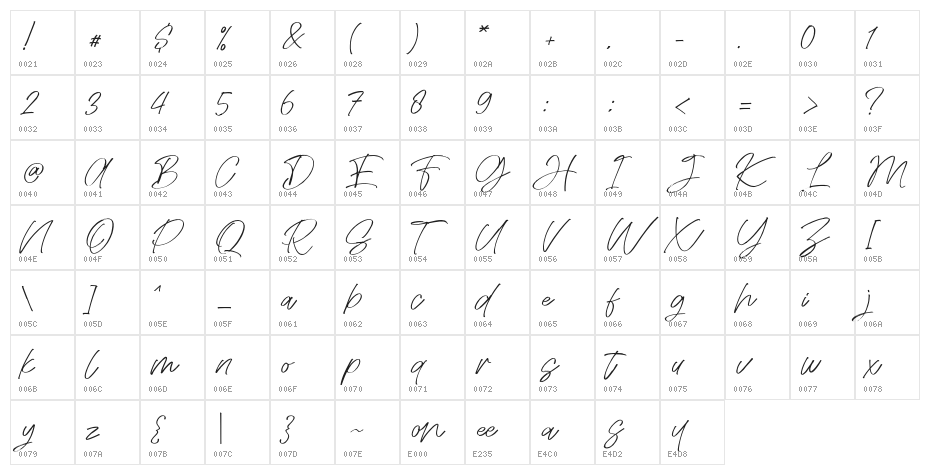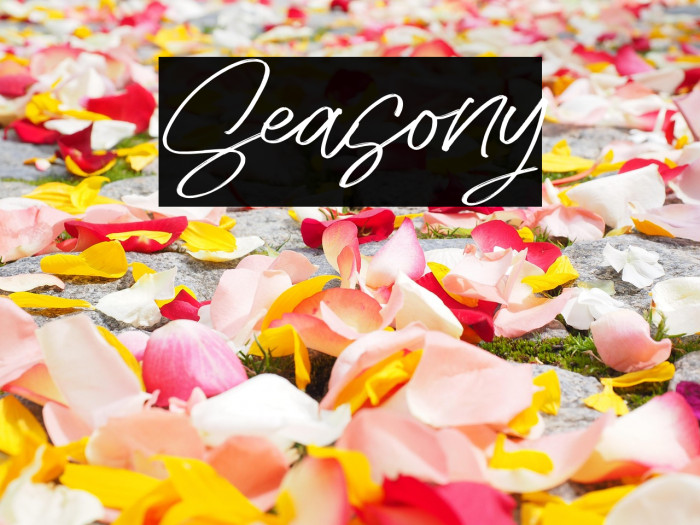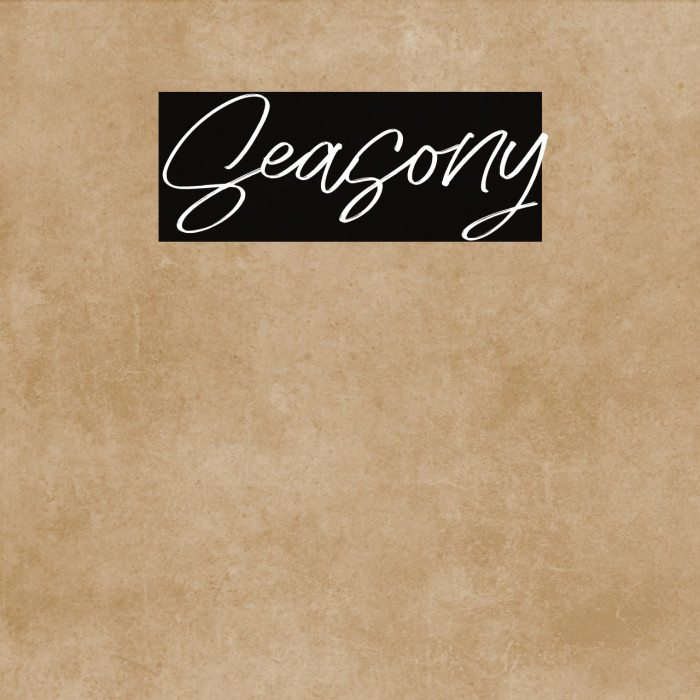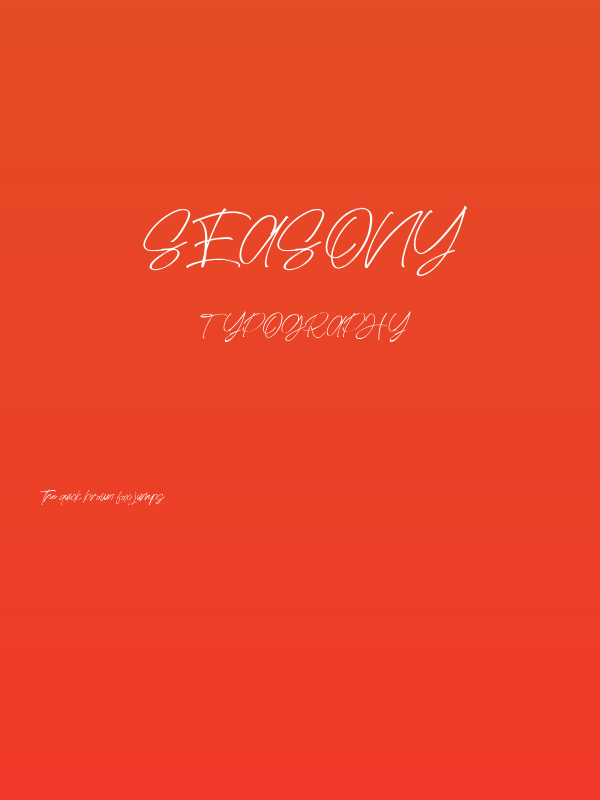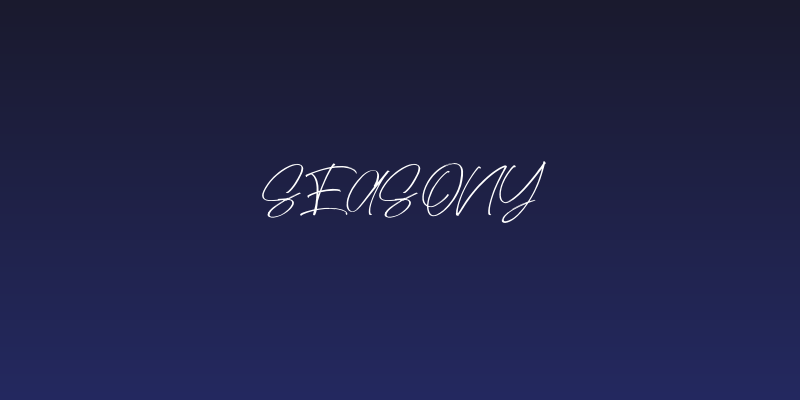
Seasony Font
Seasony Description
This font exudes a lively and dynamic energy, characterized by its flowing, cursive script style. The letters are elegantly connected, creating a sense of movement and fluidity. The strokes are smooth and slightly varied in thickness, adding a touch of sophistication. The uppercase letters maintain a consistent height, while the lowercase letters have a playful bounce, enhancing the font's whimsical charm. Numbers and special characters are designed with the same flowing style, ensuring a cohesive look across all elements. This font is perfect for projects that require a personal and artistic touch.
| Proposed Projects | Ideal for wedding invitations, greeting cards, branding, and artistic projects that require a personal touch. |